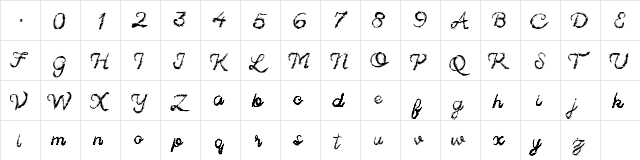
Sinister Brush Font Regular Font Preview
Sinister Brush Font Regular
Design Context for Sinister Brush Font Typeface
Sinister Brush Font brings a calligraphic fluidity to the page — its connecting strokes and expressive curves give it an unmistakably human quality.
Font Pairing: Combine Sinister Brush Font with a simple geometric sans for maximum contrast — the tension between flowing curves and clean structure is a classic typographic pairing.
Pro Tip: Pair Sinister Brush Font with a clean sans-serif for supporting text. The contrast between fluid script and geometric structure creates an elegant typographic hierarchy.